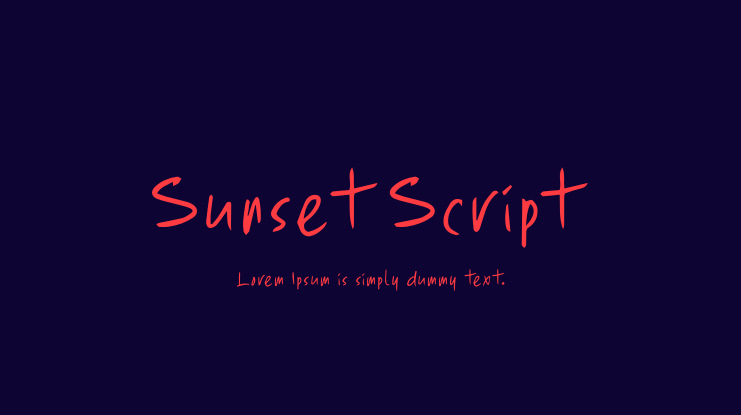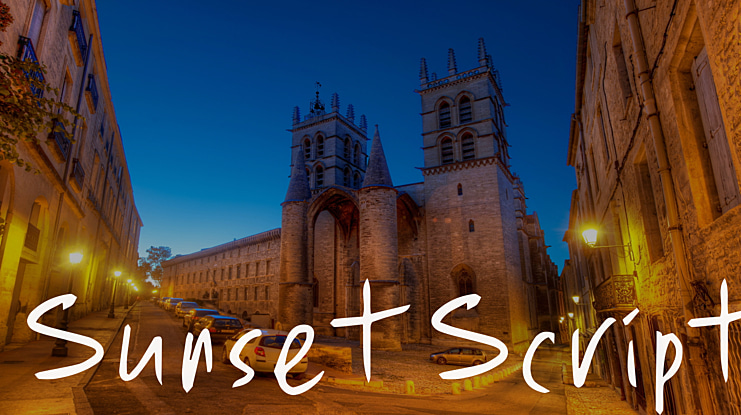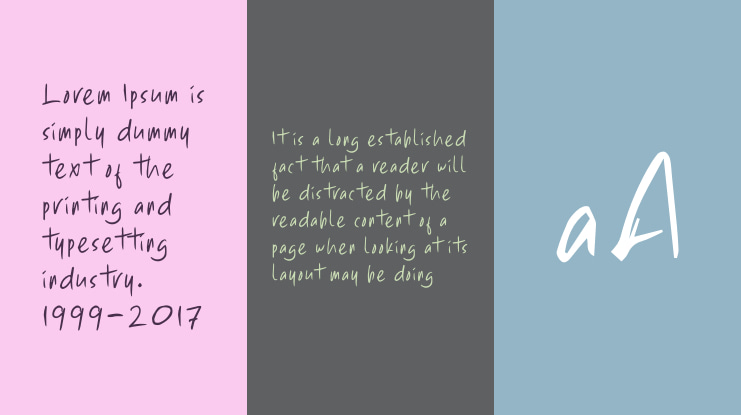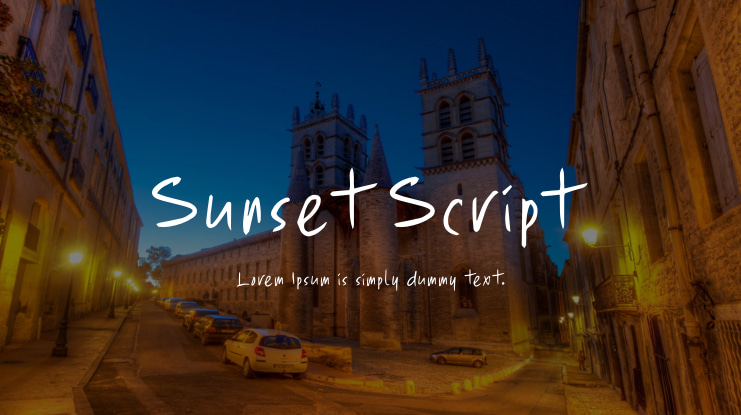
Sunset Script Font
Sunset Script is a quick-stroke handwritten font. This font will work best to emphasize your note and create stylish artwork, photograph, note book, good notes, logos and many more.